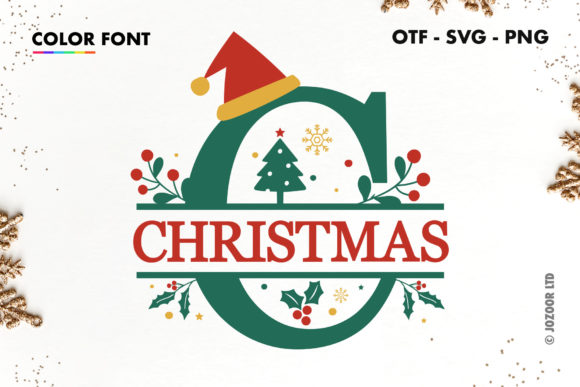
Introducing the Christmas Split Monogram Font, a delightful decorative color font that will take your Christmas designs to a whole new level! Created by the talented Jozoor, this font is specifically designed for monogram logos, making it the perfect choice for those looking to add a personalized touch to their branding.
With its unique and eye-catching style, the Christmas Split Monogram Font is guaranteed to capture attention and leave a lasting impression. Its intricate details and playful charm make it the ideal choice for a wide range of applications. Whether you're creating Christmas-themed shirts, crafts, farmhouse decor, SVG designs, or holiday projects, this font will elevate your creations and make them truly one-of-a-kind.
What sets the Christmas Split Monogram Font apart is its versatility. Not only does it lend itself beautifully to festive designs, but it can also be used year-round to add a touch of whimsy and creativity to any project. Its vibrant colors and decorative elements instantly evoke feelings of joy, warmth, and nostalgia, making it the perfect choice for spreading holiday cheer.
But the Christmas Split Monogram Font is not just visually appealing, it's also incredibly easy to use. Whether you're a seasoned designer or just starting out, this font will make your creative process a breeze. Its smooth lines and well-defined characters ensure seamless integration into any project, saving you time and effort.
One of the standout features of the Christmas Split Monogram Font is its ability to create personalized monogram logos. With a few simple clicks, you can combine letters, initials, or even words to create a unique and stylish emblem that truly represents your brand or individuality. Stand out from the crowd and make a statement with a logo that is as exceptional as you are.